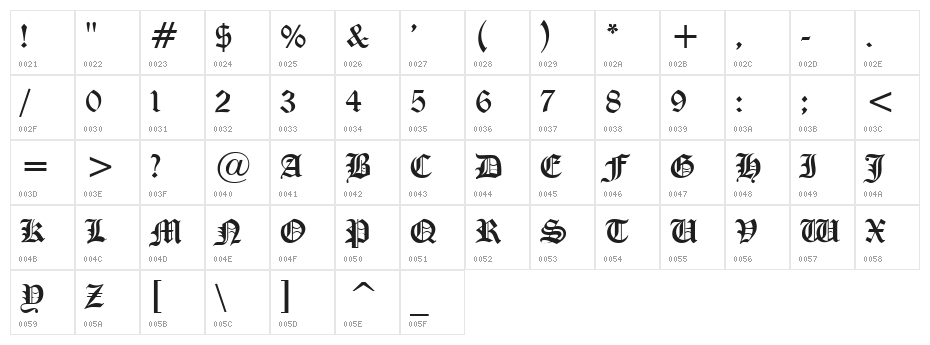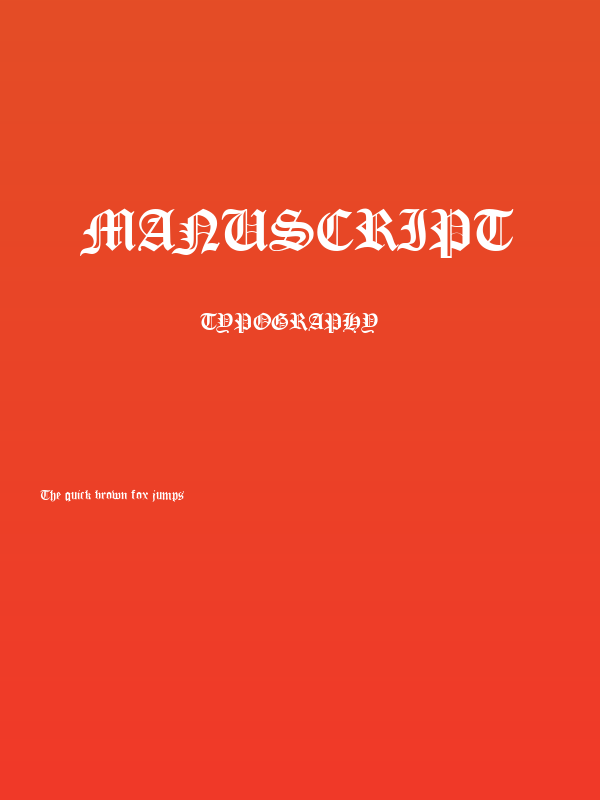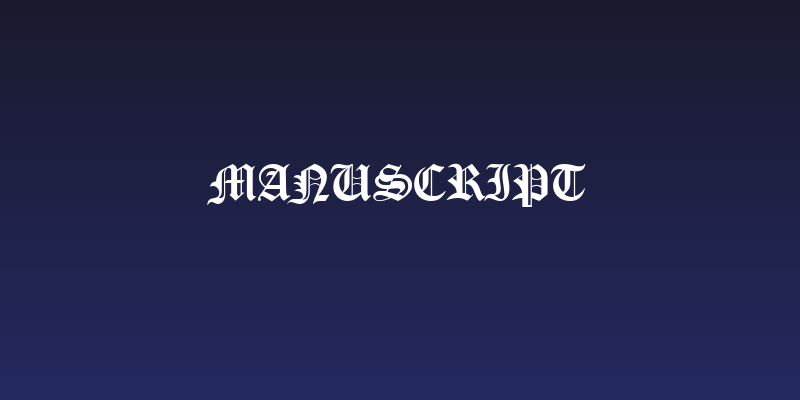
Manuscript Font
Manuscript Description
This font features a highly decorative and intricate design, reminiscent of traditional calligraphy and Gothic script. The uppercase letters are bold and ornate, with sharp serifs and elaborate flourishes that give them a majestic appearance. The lowercase letters are more fluid and connected, resembling elegant handwriting with a touch of whimsy. The numerals maintain the decorative style, ensuring consistency across all characters. Special characters are equally ornate, making this font ideal for artistic and expressive projects. The overall aesthetic is both historical and artistic, capturing the essence of medieval manuscripts.
| Overall Style | Vintage |
| Proposed Projects | Ideal for invitations, certificates, branding, and any project requiring a historical or artistic touch. |